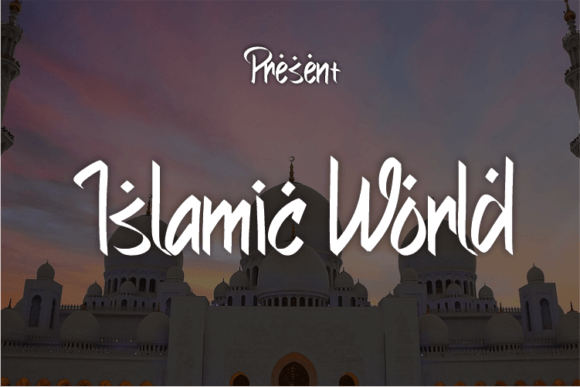
Experience the mesmerizing beauty of the Islamic World Font, a script typeface that will captivate your senses and elevate your designs to new heights. Created by the talented Eric Kusuma, this font is more than just a collection of characters; it's a work of art that combines simplicity with a modern flair.
With its elegant and luxurious style, Islamic World Font is the perfect choice for creating stunning logos that leave a lasting impression. Whether you're designing for a high-end brand or a small business, this font will add a touch of sophistication to your visual identity.
Imagine the impact of using Islamic World Font for book or movie design titles. Its graceful curves and intricate details will instantly grab the attention of your audience, setting the tone for an unforgettable reading or cinematic experience.
Fashion brands looking to make a statement can rely on Islamic World Font to convey a sense of exclusivity and refinement. Its sleek and contemporary look is ideal for creating impactful brand names and taglines that resonate with discerning customers.
Magazines seeking a fresh and modern aesthetic will find Islamic World Font to be a perfect fit. Its clean lines and exquisite letterforms make it highly legible, ensuring that your content is both visually appealing and easy to read.
Clothing brands can add a touch of elegance to their designs with Islamic World Font. Whether you're creating catchy slogans or stylish quotes, this font will effortlessly enhance the overall look and feel of your apparel, making it irresistible to fashion-forward individuals.
Don't settle for ordinary fonts when you can have the best font for text recognition. Islamic World Font combines form and function, allowing your words to make a lasting impact. Its unique style ensures that your message stands out from the crowd, leaving a lasting impression on your audience.